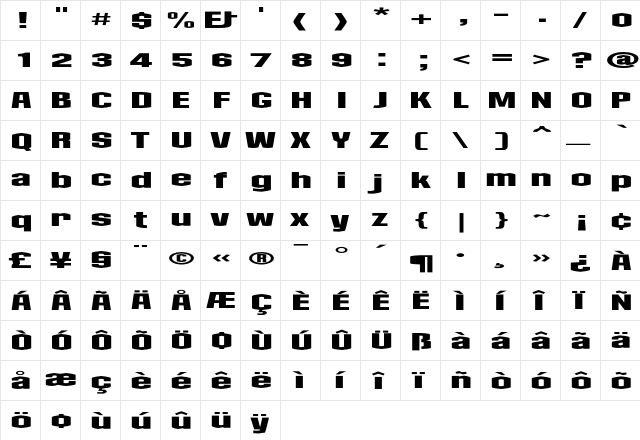
Collos Extended Font Preview
Collos Extended
Design Context for Collos Typeface
Collos offers clean, dependable letterforms without strong stylistic allegiance, making it a practical choice for designers who need flexibility.